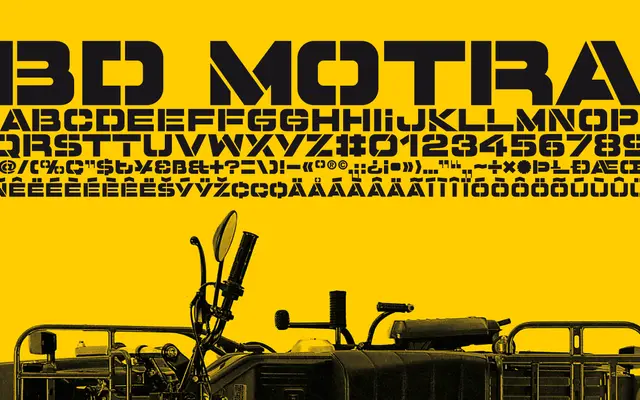
BD Motra
Type Different · 2008
A fat, wide stencil uppercase face drawn from the lettering found on Honda's rare Motra CT50 off-road scooter, manufactured in Japan in 1982.
Designed in 2008 and rooted in a specific industrial artefact, BD Motra takes its letterforms from the stencil graphics on a 1982 Honda CT50 Motra scooter. The face is broad, heavy and uppercase-first, with alternate characters accessible on the lowercase keys. It suits large-scale applications: vehicle livery, cargo markings, building signage and product labelling where an unambiguous industrial register is wanted.
An all-caps stencil face with wide, heavy letterforms intended for industrial signage and large-scale lettering applications. The stencil construction and uppercase-only primary design place it firmly in the display category.